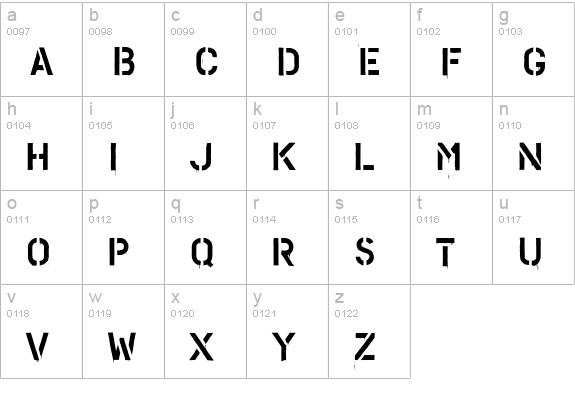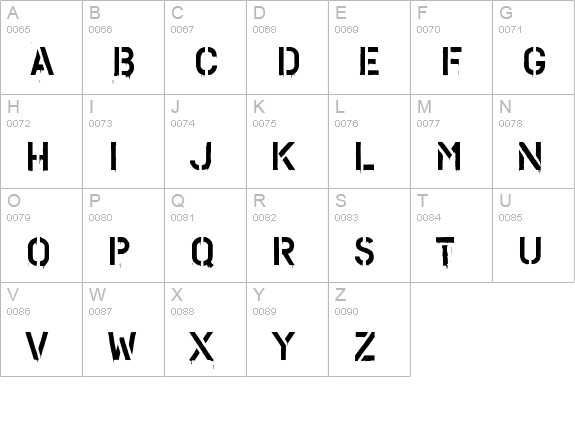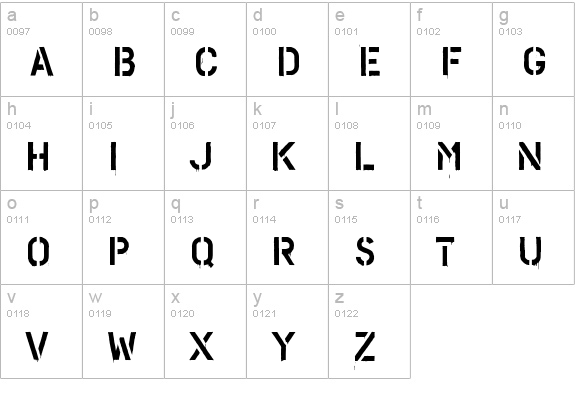
PFStampsPro-Paint Font Details
PFStampsPro-Paint font is a unique and creative typeface that brings a hand-painted and artistic touch to your designs. With its playful and whimsical appearance, this font is perfect for adding a fun and lively element to your projects. The irregular strokes and imperfections give PFStampsPro-Paint font a charming and handmade feel, making it a standout choice for any design that needs a touch of personality. Best of all, PFStampsPro-Paint font is completely free to download at FontsMarket.com. Whether you're working on a poster, invitation, branding, or any other creative project, this font is sure to add a touch of creativity and originality. Don't miss out on this fantastic free font - download PFStampsPro-Paint today and let your creativity shine!